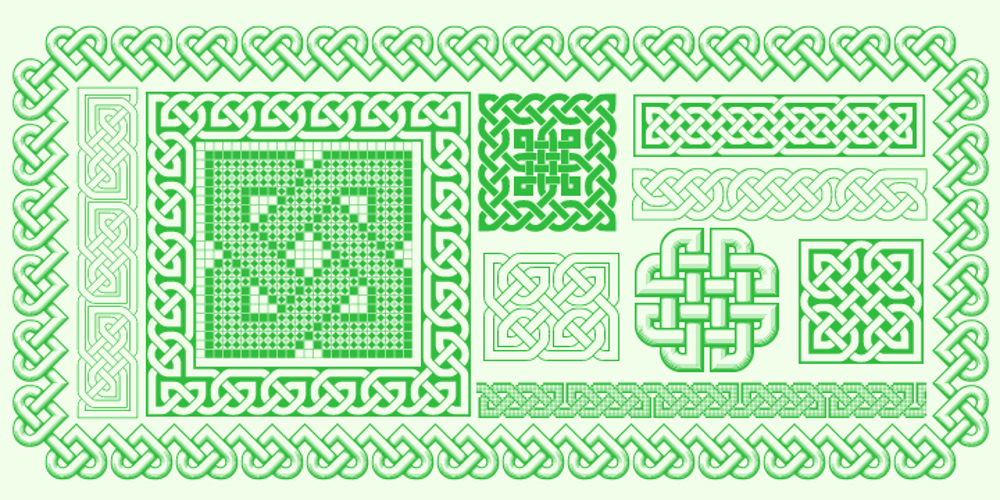
Celtic Knots Font Family was designed by Daniel Isdell and published by Clanbadge. Celtic Knots contains 6 styles and family package options. While it is obvious that this is an ornamental style font, it is more than that: it is a Celtic Knotwork design tool! Irish, Scottish, Welsh, even Norse and Viking cultures have used knotwork designs for millenia. These ancient traditional interwoven designs are experiencing a revival as Celtic culture gains exposure in the modern world. Intricate Celtic knots are featured everywhere from jewelry to tattoos. While many enjoy them simply for their beauty and fascinating twists, they can also be used to add an air of myth, magic and mystery to any project. The interlaced lines make them perfect for wedding invitations, borders, dividers and rules, web graphics, and logos. I began using Celtic knotwork designs in my own work as part of my knifemaking and jewelry making hobbies. I read all of the books I could find about Celtic knots and at first I drew them by hand with pencil and paper. Then as I realized how nice it would be to have “undos” I switched over to using Corel Draw. Draw proved to be a natural for this type of artwork with tools like contour and the trim function. But even with these great tools, it was still tedious to create these designs. I noticed that I was able to reuse a lot of parts in repetitive sections. I developed a small library of reusable bits and chunks of Celtic designs. I found them so useful and fun to work with that I began thinking about ways to market my Celtic design kit. I thought about CDR and EPS formats, but then I thought of creating this toolset as a True Type Font. That way anyone with ANY program that uses fonts could easily create Celtic knotwork designs. Word processors, embroidery programs, engraving programs, jewelry design programs, CAD/CAM programs…almost every program can use fonts. I was also interested in CNC work and thought that this font would work well for applications such as laser etching, vinyl signs, and machining. With that in mind, I designed each character of the font with extremes of accuracy. If one character from the font is used at one inch tall, every control point will be placed to an accuracy of better than 0.0001 inch. I wanted every piece to meet exactly with the next, with no possibility for misalignment. The different styles are all very carefully created to fit accurately with each other. So the Filled Style fits exactly into the Outline Style, and the Inverse Style fits precisely around the Outline Style so as to make up the background behind the knotwork. Combining the styles allows you to have complete creative control. By assembling the nearly 200 pieces it is quite easy to produce very complex designs. It is actually a bit like playing with a puzzle and many people really enjoy putting the pieces together to make designs. In fact, I have had many customers tell me of how they love playing with this font and making knots into the wee hours of morning. If you like puzzles then you will absolutely love this font! And creating the patterns is just the beginning of the fun! If you apply your favorite Photoshop tricks on them you can make anything from dazzling chrome knotwork to carved stone. Photoshop plug-ins like SuperBladePro are great for converting knotwork text into corroded bronze or rusted iron. Use your knotwork to add texture to a virtual landscape, or add them as surface embelishments on architecture and furniture. You can also make round knotwork by using this font with “WordArt” (WordArt is included with every copy of Microsoft Word. See http://clanbadge.com/round_knots.htm for a tutorial on how to make round knotwork). For Crafters there are limitless uses for this font. It has been used for embroidery, jewelry, leatherwork, stencils, stained glass, quilting, painting, pyrography, woodcarving and lots more. We have even sold copies to monks for use in decorating handmade books!